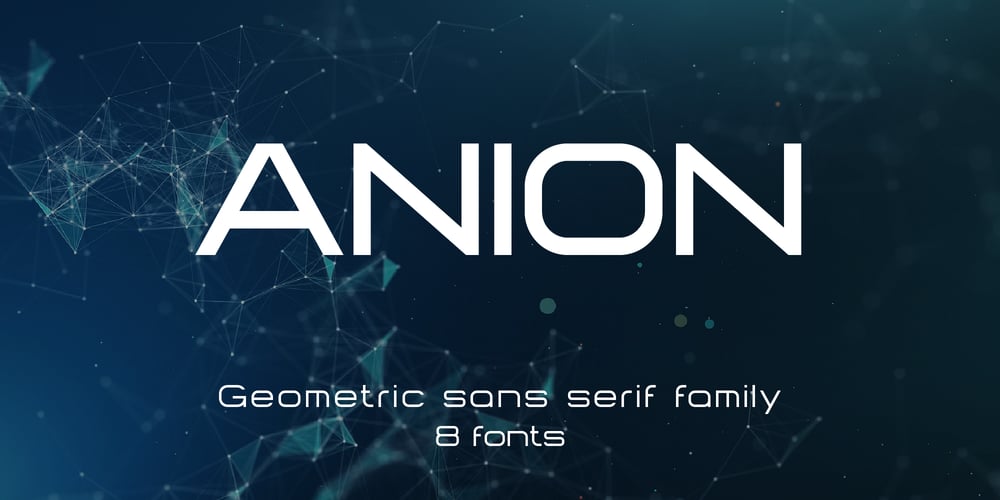
Anion
Anion font
Anion Font Family was designed by Volodymyr Berla and published by VladB. Anion contains 8 styles and family package options. Anion is a modern sans serif geometric font, includes upper and lower case characters, Latin, Cyrillic, Latin Eastern Europe, Turkish, Baltic and other, 500+ symbols.Anion family consists of 8 fonts, divided into 2 subgroups (according to the type of style – St, Op), and have the 4 types of thickness in each subgroup.Anion fonts will be useful in developing a brand, creating posters and other graphic products, and for word processing.